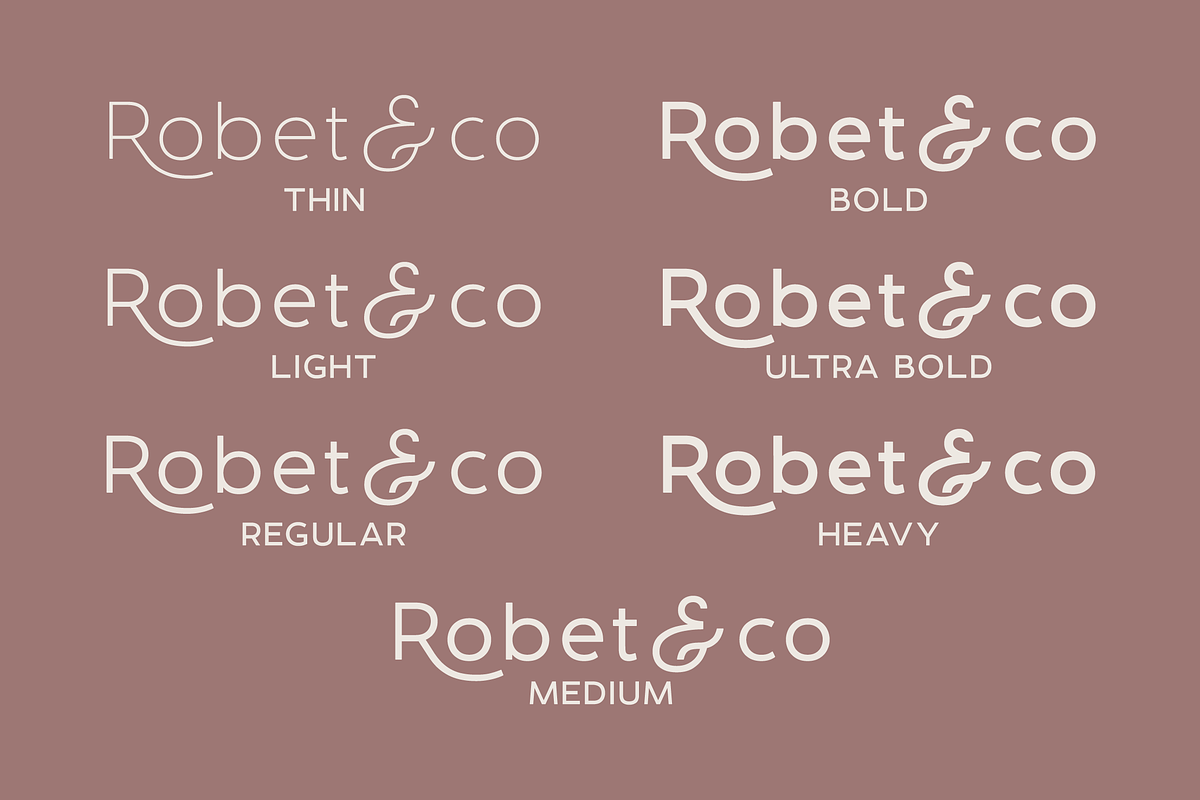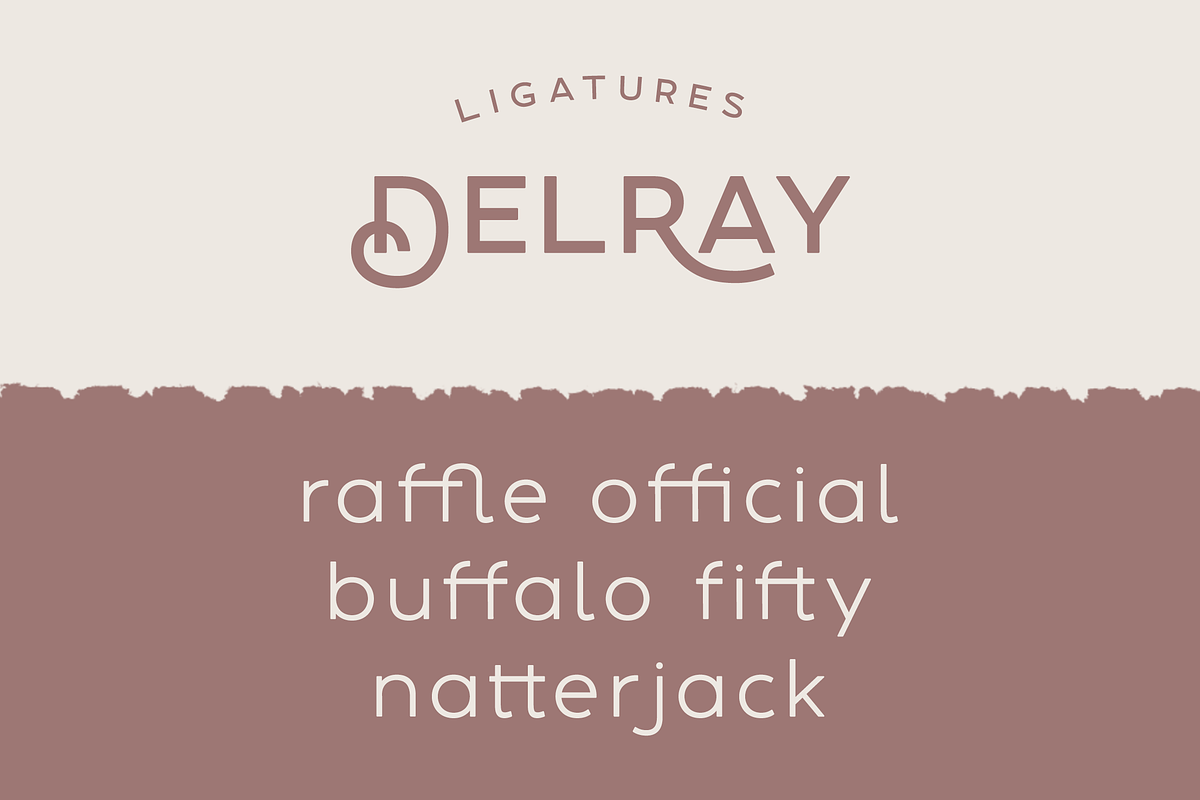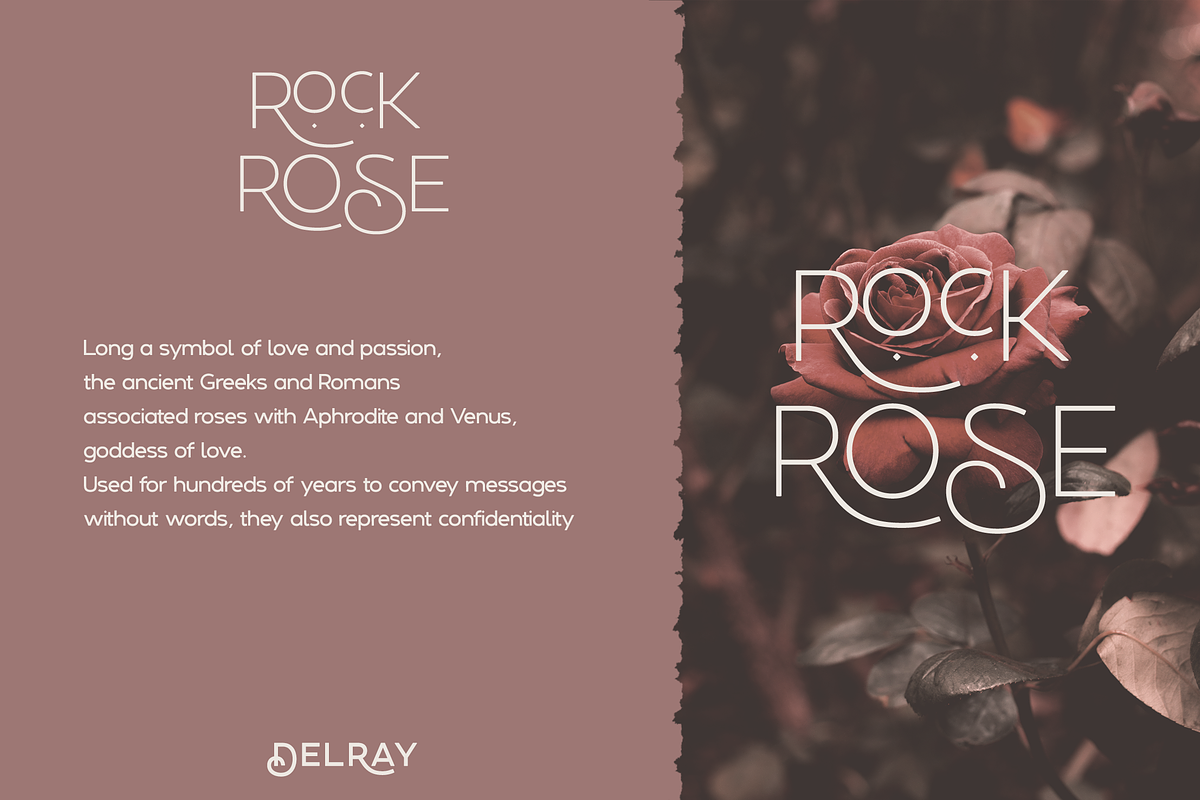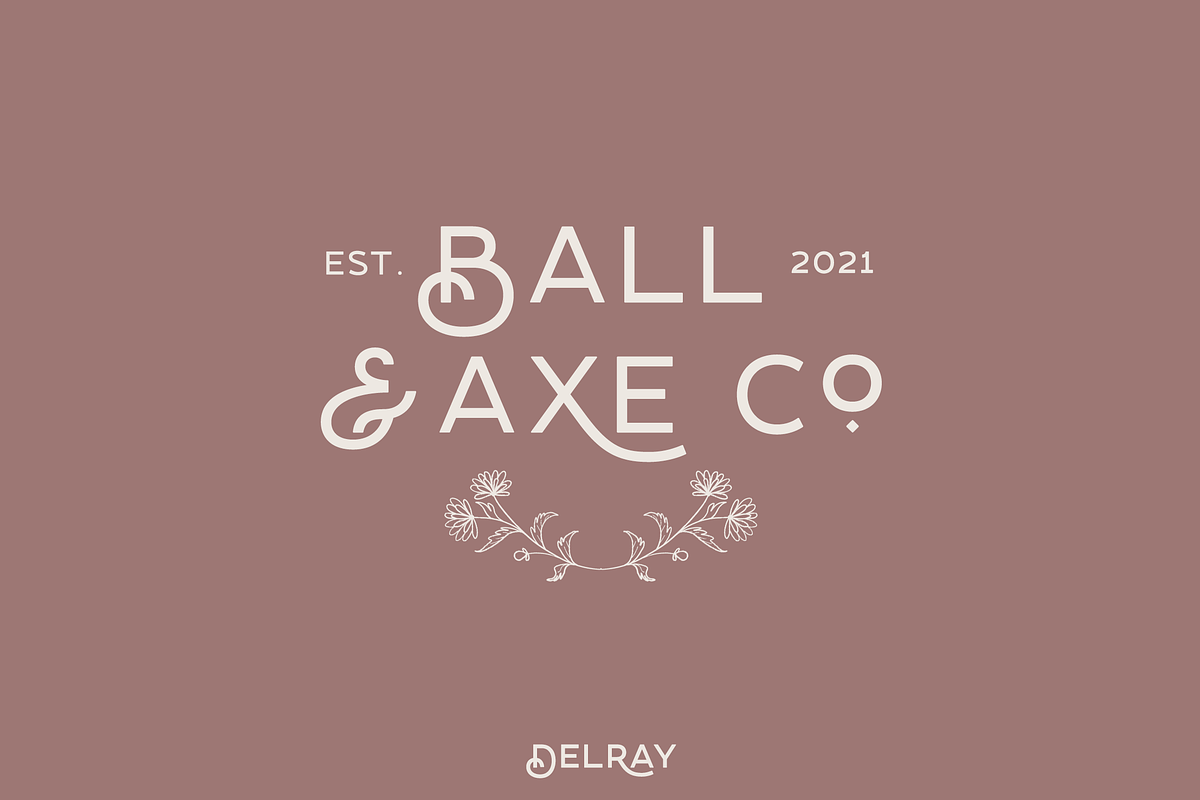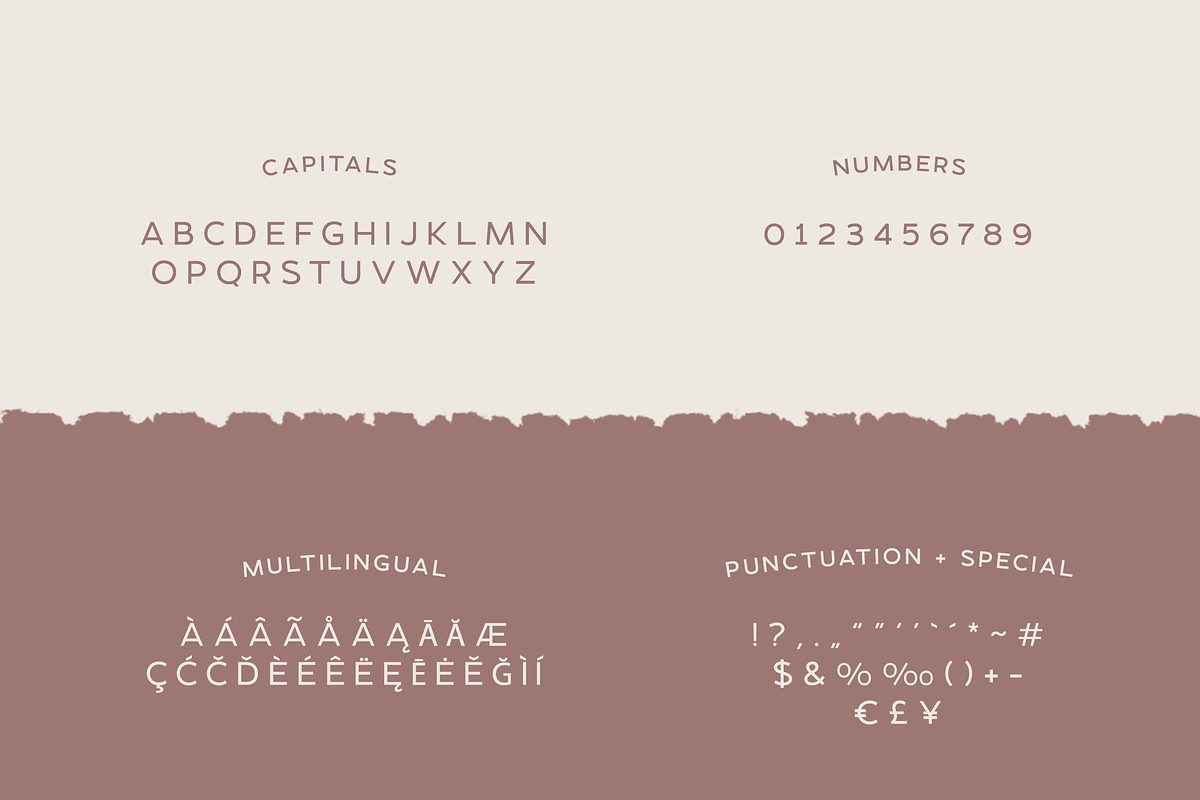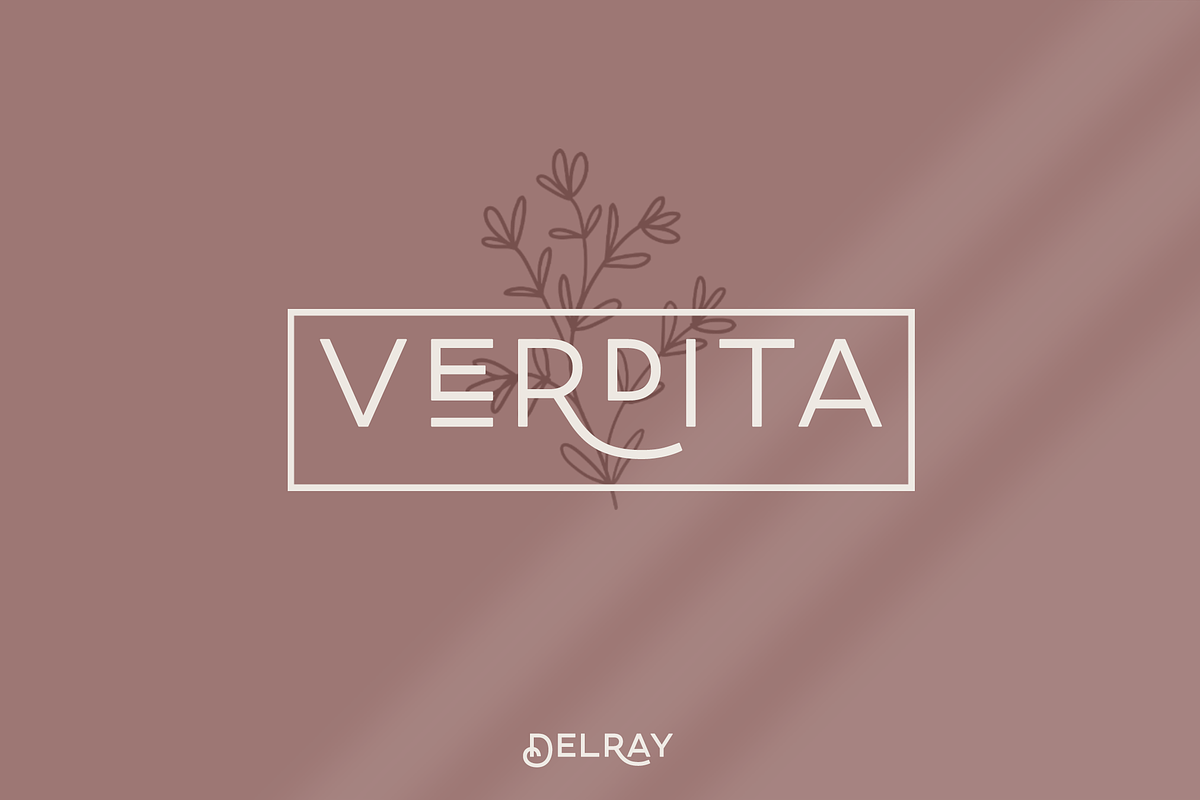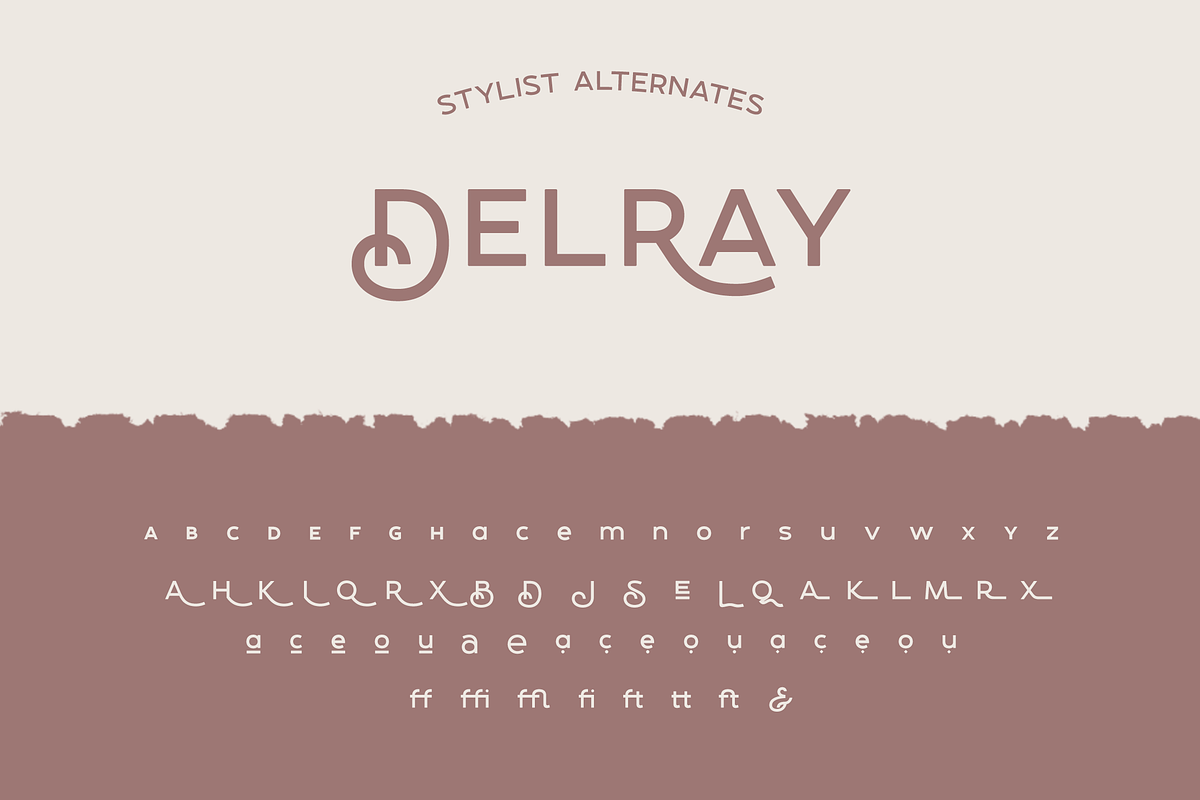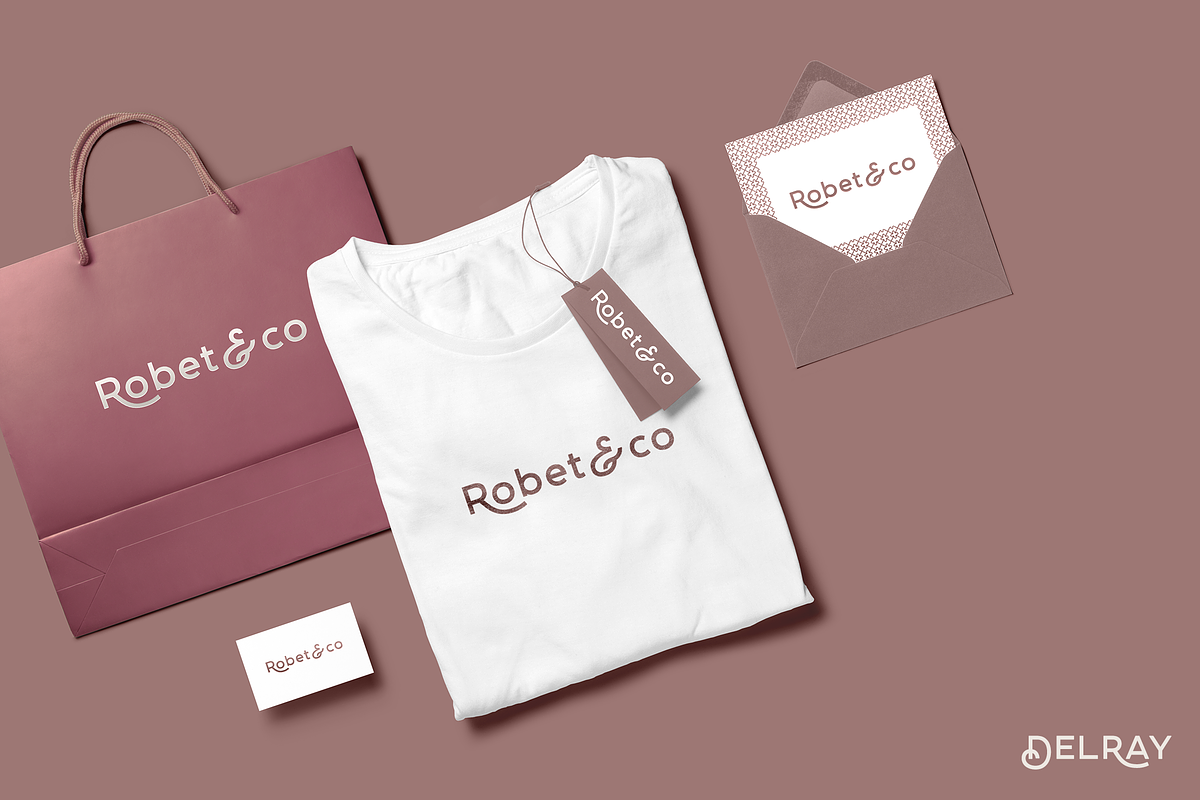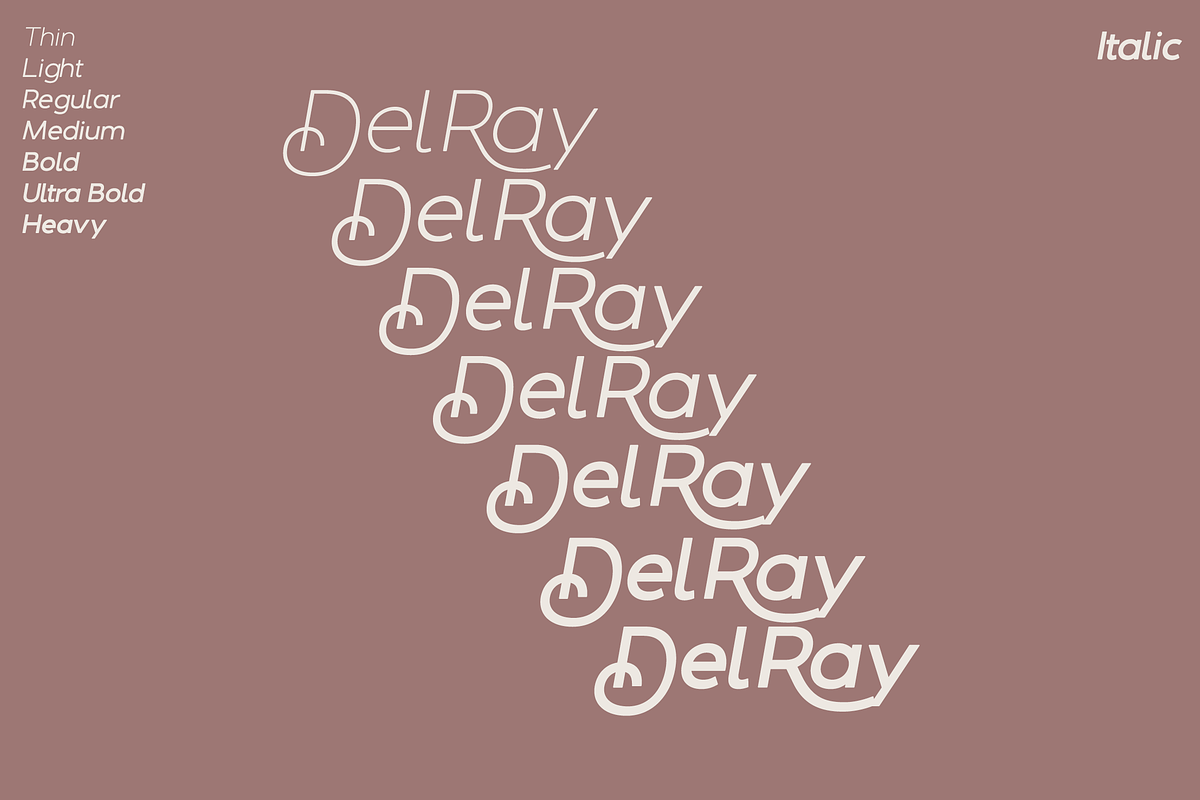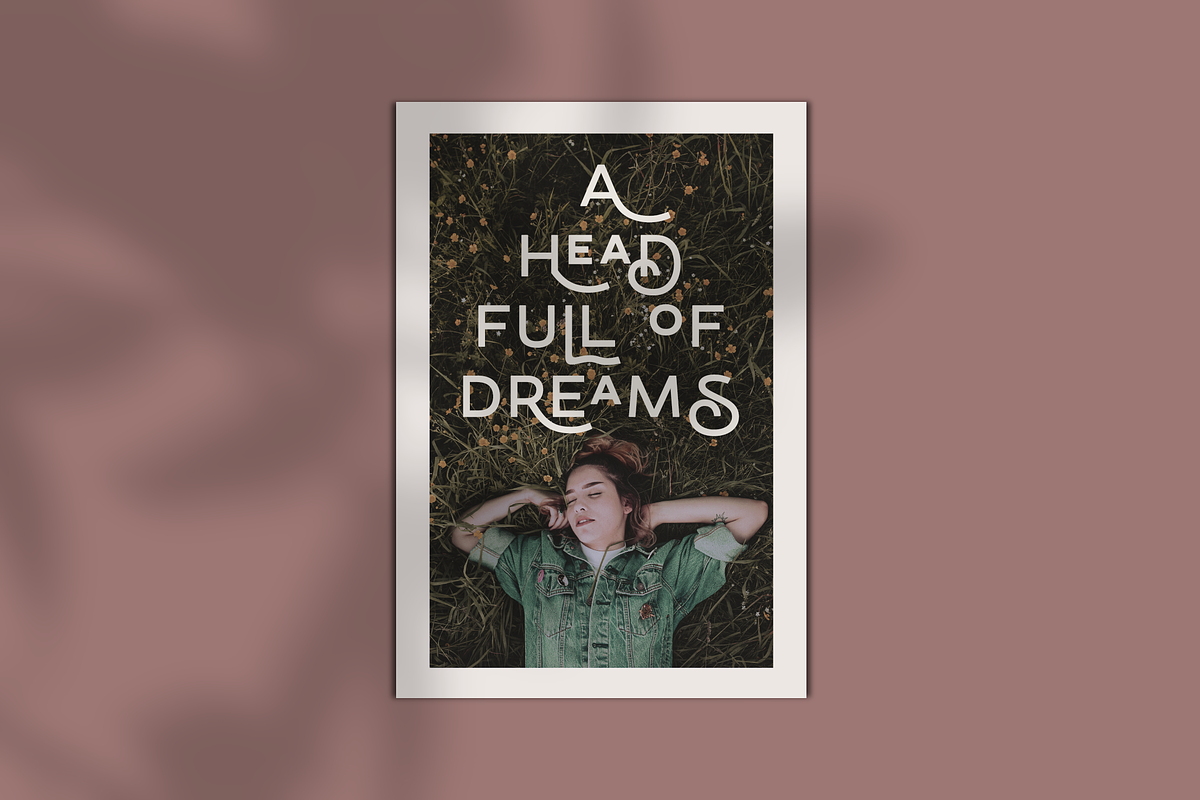
DelRay - Sans Serif Ligature Typefac
DelRay is a ligature filled sans serif typeface that features 7 weights, plus italics and a variable font! This versatile product is sure to add a little excitement to your collection.
DelRay features multilingual characters as well as alternates such as elevated capitals & capitals with stylistic underdots added.